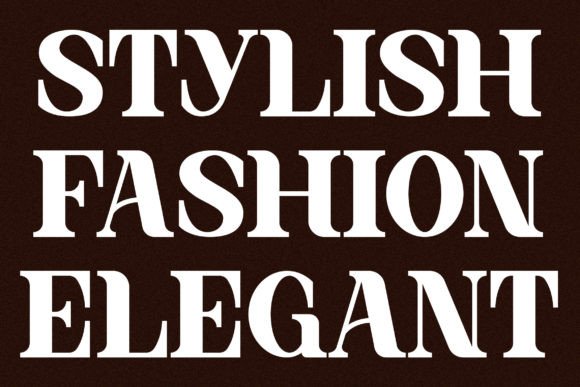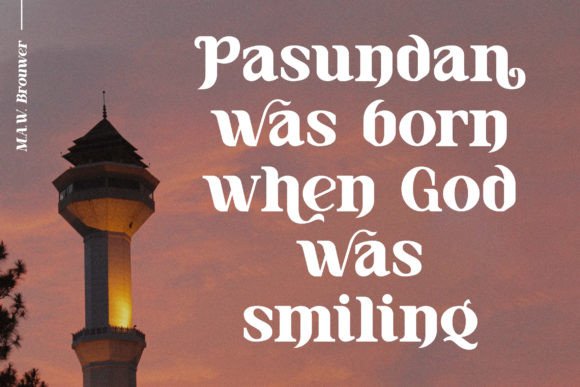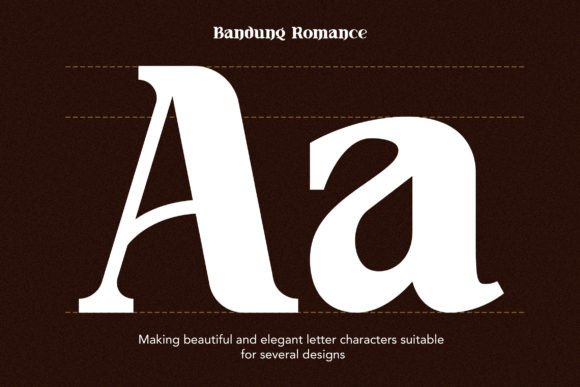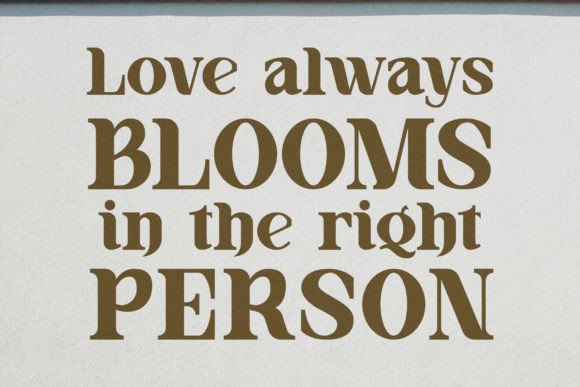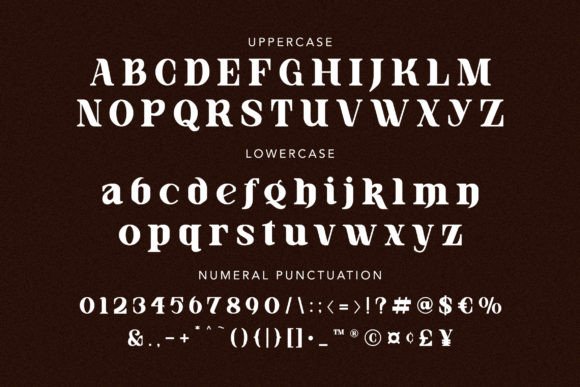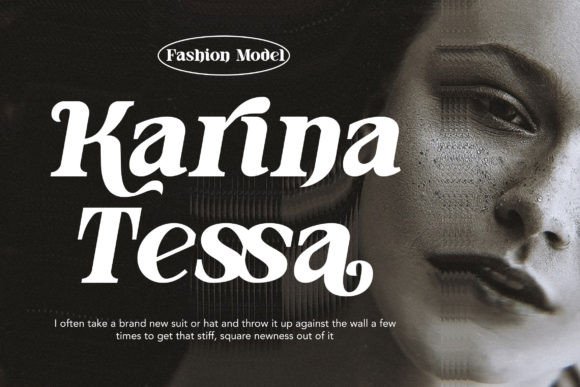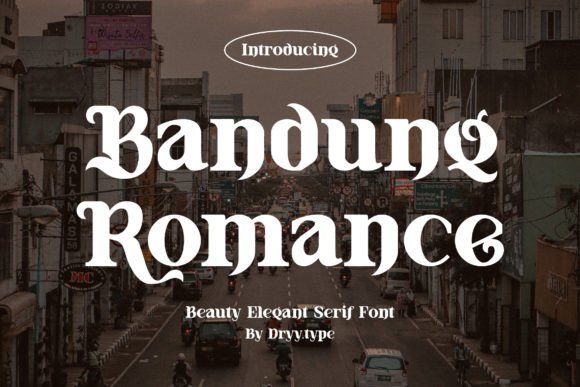
Discover the Timeless Charm of Bandung Romance Font
In the world of typography, few fonts capture the essence of classic elegance and sophistication as effortlessly as the Bandung Romance font. This stylish typeface is a nostalgic nod to the glamour of the 1960s, an era renowned for its iconic fashion, memorable movie stars, and a distinctive aesthetic that continues to inspire designers and crafters today. Bandung Romance, with its elegant serifs and bold curves, is more than just a font – it’s a ticket to a bygone era of charm and refinement.
The Allure of Bandung Romance
So, what makes Bandung Romance stand out in a sea of typefaces? The answer lies in its unique blend of vintage appeal and modern versatility. This font is meticulously designed to evoke the sense of nostalgia and romance associated with the 1960s, making it an ideal choice for projects that require a touch of classic sophistication. From vintage posters and elegant logos to bespoke invitations and stylish packaging, Bandung Romance brings a level of elegance and poise that’s hard to achieve with more contemporary typefaces.
Key Features of Bandung Romance Font
- Elegant Serifs: The serifs in Bandung Romance are designed to add a touch of luxury and refinement to any design project. They contribute to the font’s classic feel, making it perfect for designs that aim to convey a sense of tradition and heritage.
- Bold Curves: The bold, flowing curves of Bandung Romance add a dynamic and expressive quality to the font. These curves not only enhance the readability of the text but also contribute to its aesthetic appeal, making the font versatile enough for use in a variety of design contexts.
- Versatility: One of the standout features of Bandung Romance is its versatility. Whether you’re working on a vintage-themed poster, a classic logo, or a modern packaging design, this font adapts seamlessly to different design requirements, ensuring that your project stands out with a unique charm.
Why Choose Bandung Romance for Your Projects?
For designers and crafters looking for a font that can add a touch of timeless elegance to their work, Bandung Romance is an excellent choice. Here are a few reasons why:
- Unique Aesthetic: In a digital age where trends come and go, Bandung Romance offers a unique aesthetic that can set your designs apart. Its distinctive look and feel can add a memorable touch to your projects, making them more engaging and impactful.
- Cross-Platform Compatibility: Bandung Romance is designed to be highly versatile, ensuring that it looks great across different platforms and mediums. Whether your project is digital, print, or both, this font maintains its elegance and readability.
- Inspiration at Your Fingertips: With Bandung Romance, you have a tool at your disposal that can instantly evoke the glamour of the 1960s. This can be a powerful source of inspiration for designers looking to create work that pays homage to classic design principles while still feeling fresh and contemporary.
How to Use Bandung Romance Effectively in Your Designs
To make the most of Bandung Romance, consider the following tips:
- Pair it with Simpler Fonts: For optimal readability, pair Bandung Romance with simpler, sans-serif fonts for body text. This contrast will highlight the elegance of Bandung Romance while ensuring your content is easy to read.
- Experiment with Sizes and Weights: Don’t be afraid to experiment with different sizes and weights of Bandung Romance. This can add depth and hierarchy to your designs, making them more visually appealing.
- Emphasize Key Elements: Use Bandung Romance to emphasize key elements in your design, such as headings or quotes. Its unique style can draw attention and add emphasis where needed.
| Font Name | Bandung Romance Font |
| Author | Dryy.type |
Bandung Romance font is a stylish and sophisticated typeface that brings the glamour of the 1960s to your fingertips. Its elegant serifs, bold curves, and timeless charm make it an excellent choice for designers and crafters looking to add a touch of classic elegance to their projects. Whether you’re designing a vintage poster, a classic logo, or simply looking for a font that stands out, Bandung Romance is sure to exceed your expectations. Discover the allure of Bandung Romance and let it transport your designs back to an era of unmatched glamour and sophistication.